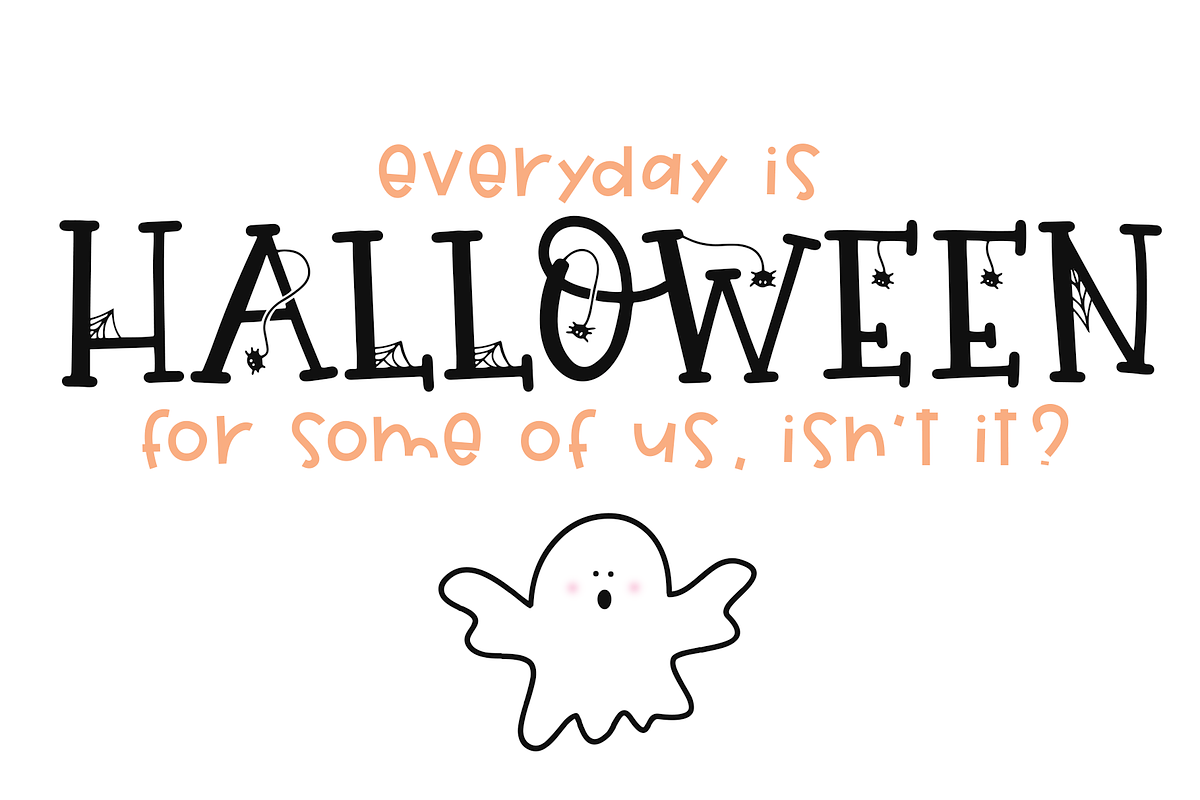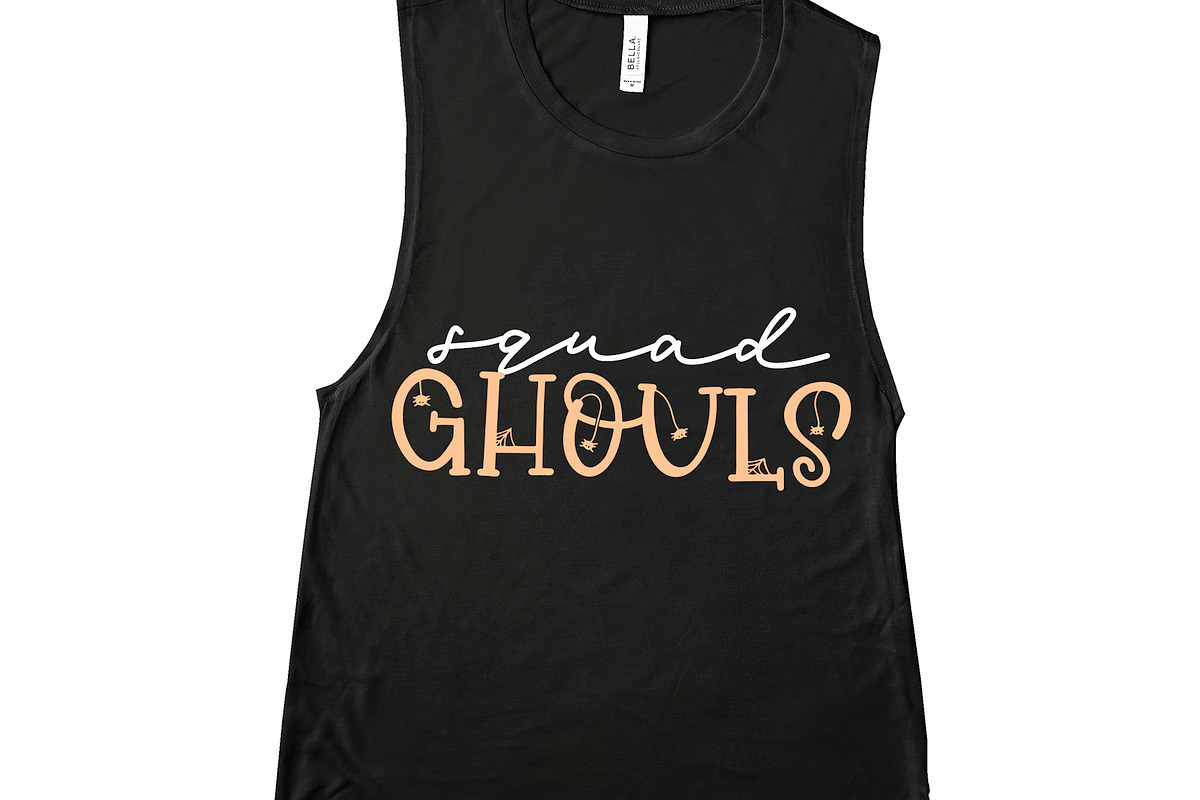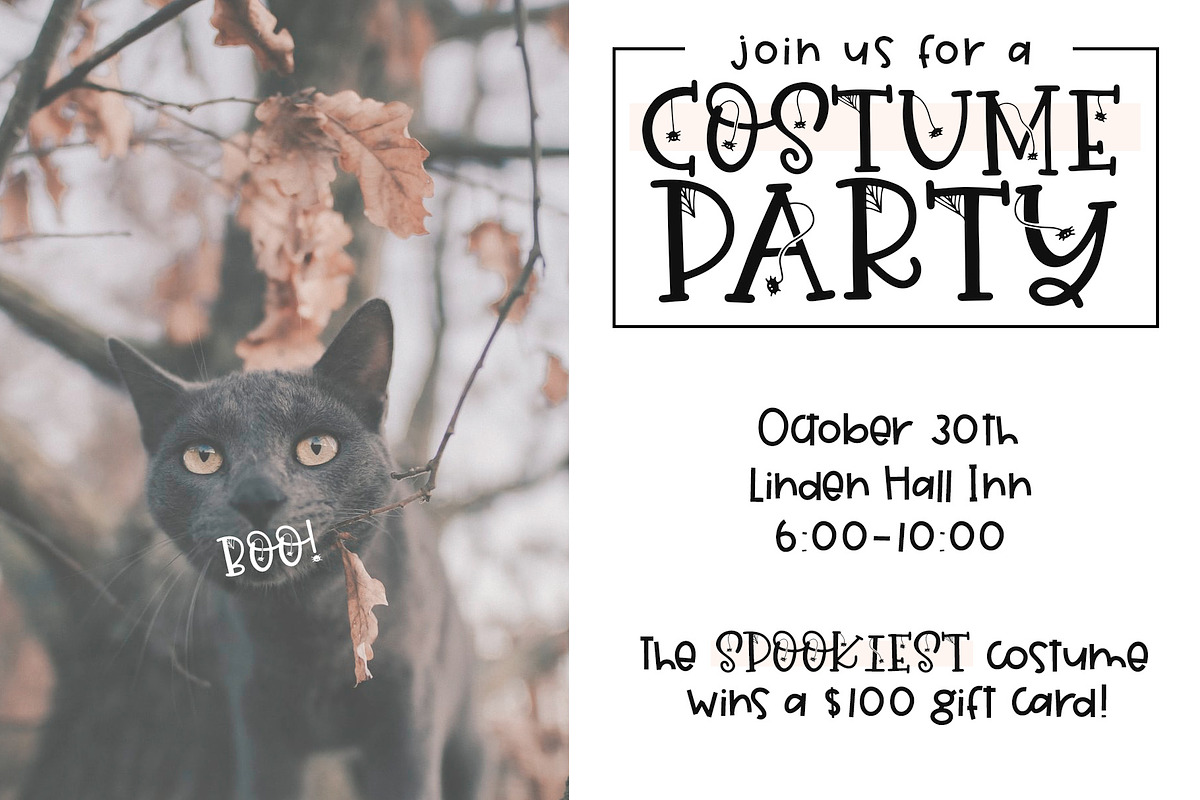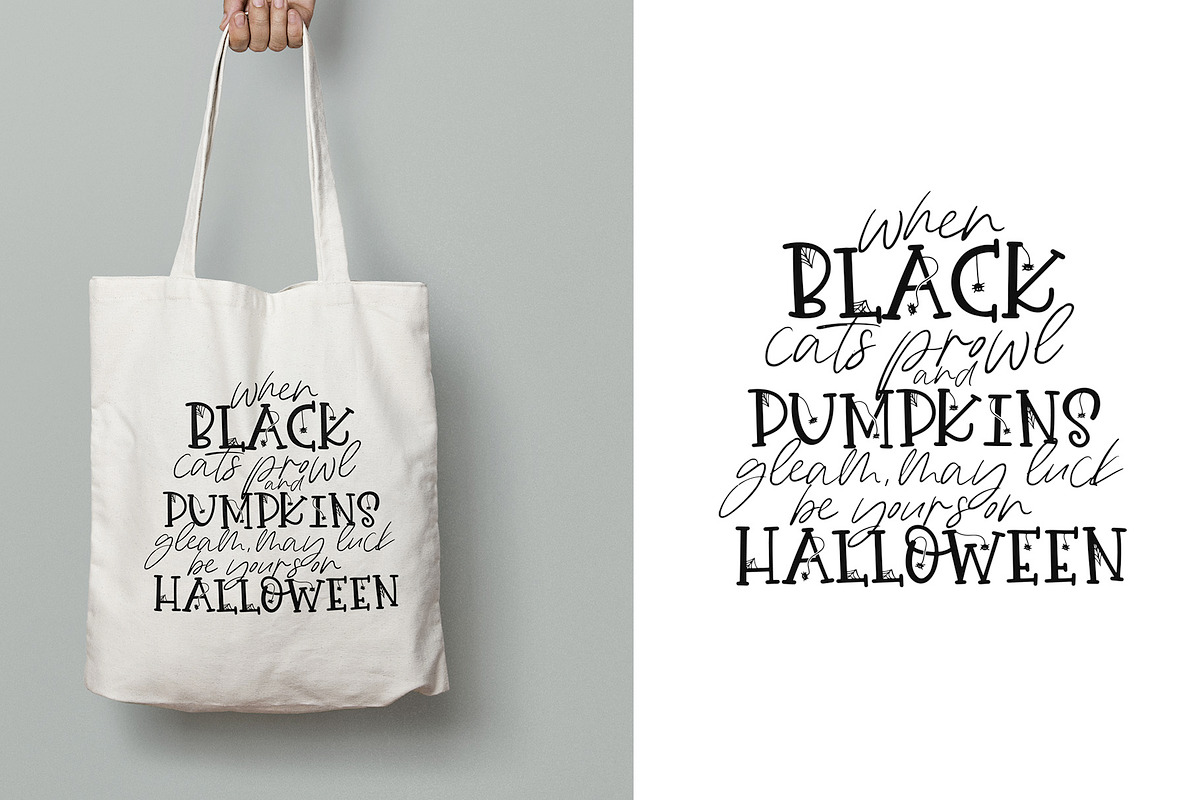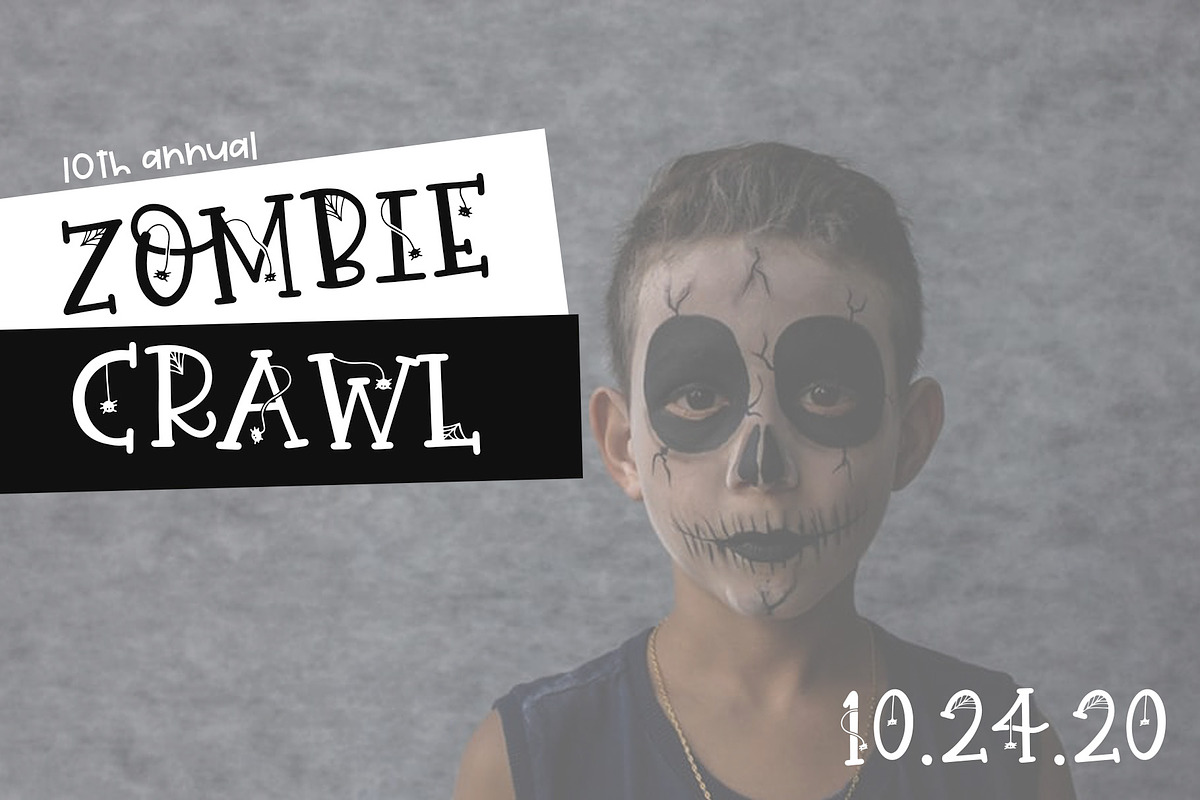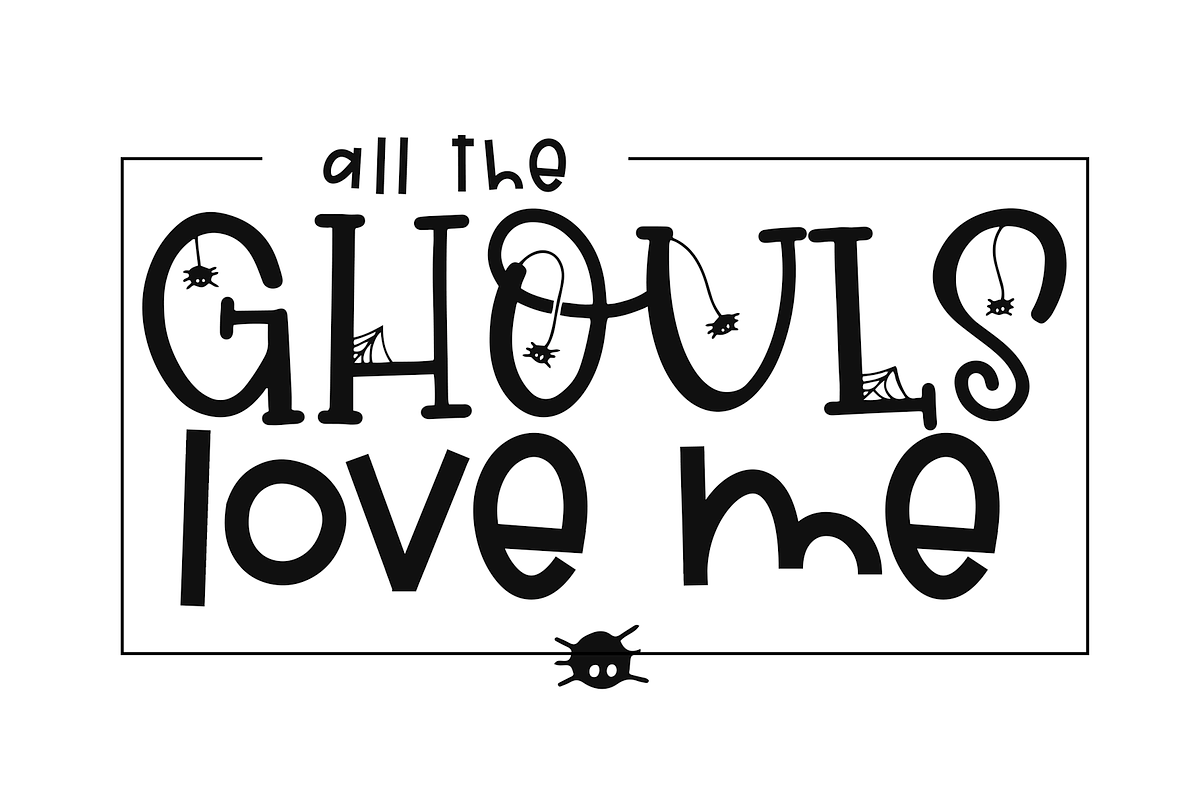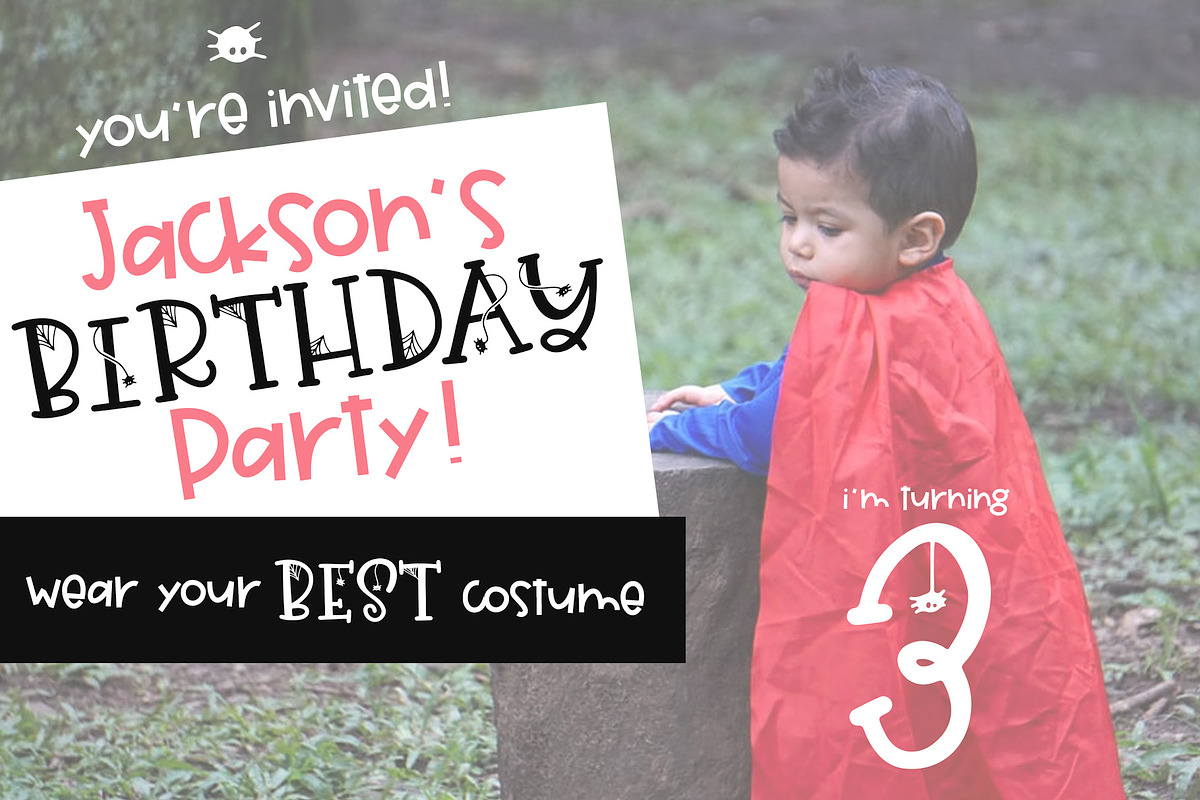
Hey Boo - Spooky Halloween Font
Hey Boo is a fun & spooky handwritten font.
The capital and lowercase letters are the SAME. They alternate between spiders/webs. This font is perfect for quotes, headings, blogs, logos, invitations and more!
- The capital and lowercase letters are the SAME.
- They alternate between spiders/webs.